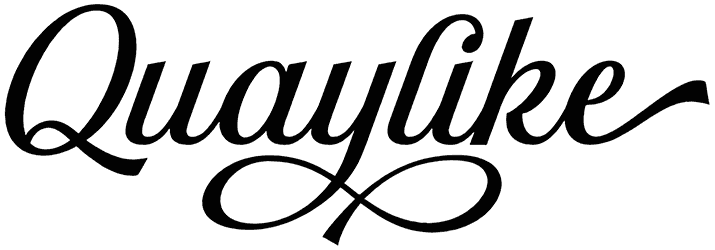
Quaylike Font
Set this handwritten font on your new modern or classic design and create a ravishing visual for your layout. The Quaylike font has a smooth and friendly vibe that could be matched with varied tastes. This cursive font doesn’t support numbers, but you can use it for a birthday party invitation card and amaze your viewers.
This font is more than just another handwritten font. Quaylike is a handwritten font with big, quirky letters. It encapsulates the essence of luxury and elegance. Designed primarily as a captivating handcrafted with retro style. This typeface that is easy on the eyes font that excels at captivating headlines, or large branding text, the font oozes that cute aesthetic that just makes you go “aww!”